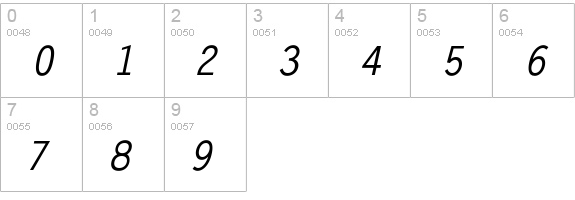
Letter Gothic Bold Slanted Font Details
Letter Gothic Bold Slanted is a strong, high-contrast variant in the Letter typeface family \xE2\x80\x94 well suited to headlines, attention-grabbing titles, and strong calls-to-action.
Letter Gothic Bold Slanted font is a captivating and versatile typeface that exudes a sense of modernity and professionalism. Its bold and slanted design gives any text a distinct and eye-catching aesthetic, making it the perfect choice for various design projects. With its clean and crisp lines, Letter Gothic Bold Slanted font adds a touch of sophistication to any document or design. It is particularly well-suited for headlines, titles, logos, and branding materials, as it effortlessly grabs attention and leaves a lasting impression. This font's slanted style adds an exciting twist to the traditional Letter Gothic Bold font, lending a dynamic and energetic feel to any text. It brings a sense of movement and vitality, making it an excellent choice for projects that require a bold and unique visual impact. What sets Letter Gothic Bold Slanted font apart is not only its striking design but also its accessibility. It is freely available to download at FontsMarket.com, ensuring that anyone can easily access and use this exceptional font. Whether you're a professional designer, a student, or an enthusiast, you can enhance your creative projects with this font without any barriers. Letter Gothic Bold Slanted font is perfect for a wide range of applications, including advertising, packaging, posters, websites, and more. Its versatility allows it to seamlessly adapt to various design styles and contexts, making it a valuable asset in any typographic toolkit. Overall, Letter Gothic Bold Slanted font combines elegance, boldness, and versatility, making it an essential choice for designers who seek to create visually stunning and impactful designs. With its free availability at FontsMarket.com, there's no reason not to download and explore the endless possibilities this font has to offer.